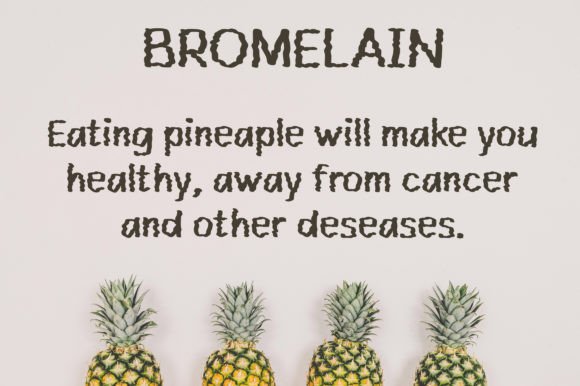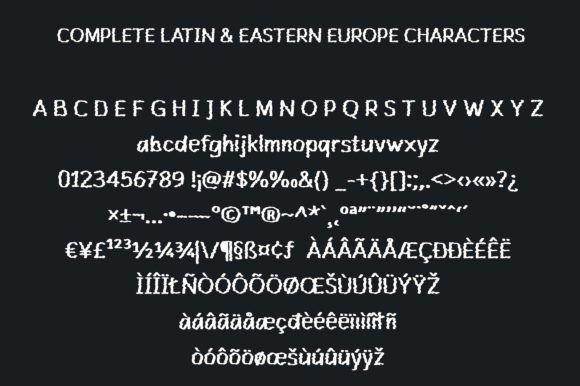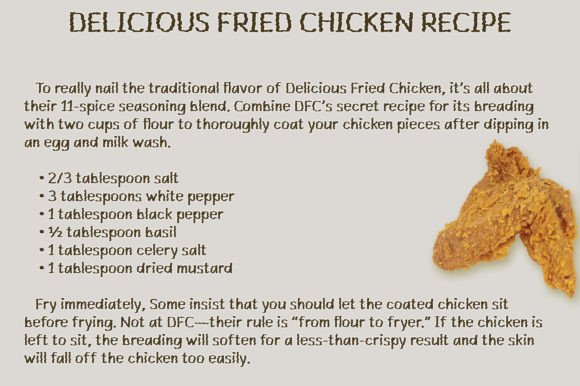
Introduction to Bagudung Font
As a designer, there’s nothing quite like the thrill of bringing a creative project to life. It’s the moment when all the pieces come together, and your vision starts to take shape. For me, that moment often begins with the perfect font. And that’s exactly why I’m excited to introduce you to the Bagudung Font – a beautiful, bold, and playful handwritten font that’s sure to add a touch of magic to your designs.
With its clean and natural shape, the Bagudung Font is the perfect addition to any design project. Whether you’re creating a logo, title, or subtitle, this font is sure to make your work stand out. And the best part? It’s completely free to download, making it an invaluable resource for designers on a budget.
Key Features of Bagudung Font
- High-quality design resource ideal for creative projects, offering a unique and modern aesthetic.
- Unique characteristics, including an open and airy feel, making it perfect for modern design projects, branding, and creative endeavors.
Honest Review: Bagudung Font
I recently had the chance to work with the Bagudung Font for a creative project, and I must say it was a pleasant experience. The font is available for free download, which is always a great starting point for any design project.
- ✨ The font is high-quality and has a unique, modern design that can add a touch of sophistication to any project.
- ✨ The font is highly customizable, making it perfect for designers who want to add their personal touch to a project.
However, I did encounter some limitations when working with the Bagudung Font:
- ⚠️ The font’s unique design may not be suitable for all types of projects, particularly those that require a more traditional or classic look.
Overall, I was impressed with the Bagudung Font’s performance and would recommend it to designers who are looking for a high-quality, modern font for their creative projects.
Designing with Bagudung Font
Bagudung Font is a high-quality design resource ideal for creative projects that require a unique and stylish touch. With its transparent background, you can easily layer it over other design elements to create visually appealing compositions.
To get the most out of Bagudung Font, experiment with different font sizes, colors, and combinations. You can also use it in conjunction with other design resources to create a cohesive and professional look.
Bagudung Font is commonly used in graphic design, digital art, and typography projects. Its versatility makes it a great addition to any design resource collection.